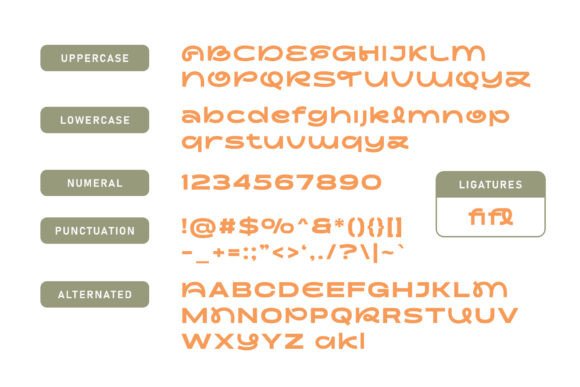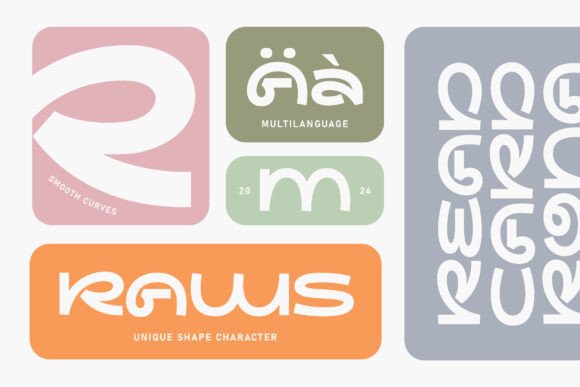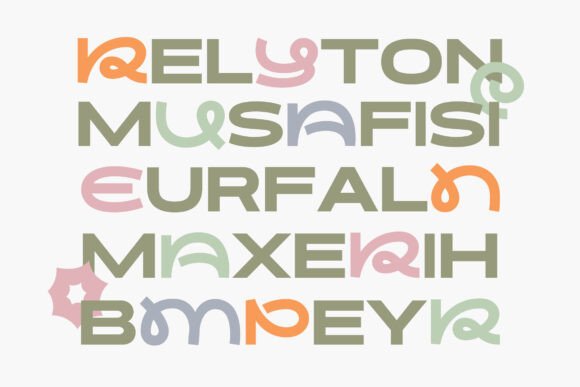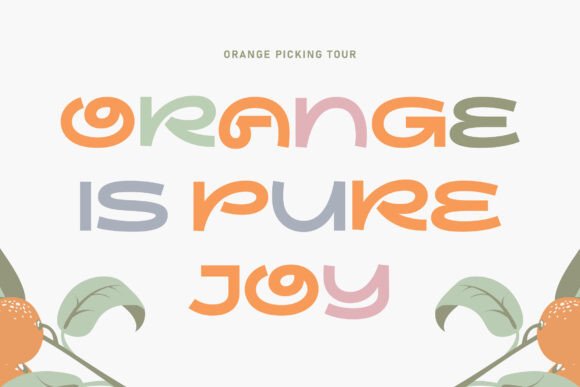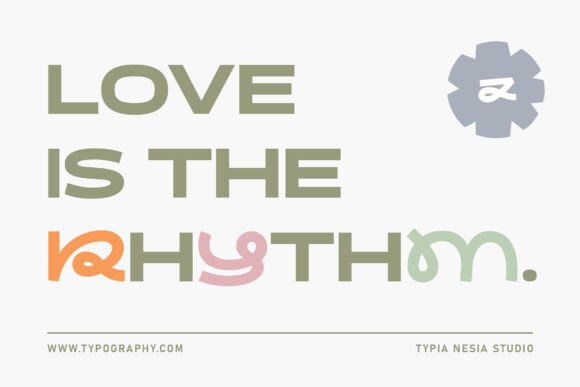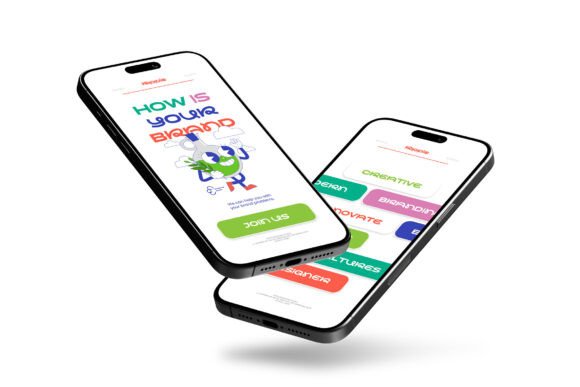
Frezbie Font: Elevate Your Designs with a Modern Loopy Sans Font
In the world of typography, a font can make all the difference in the success of a design project. For designers and crafters looking for a unique and modern typeface that adds a touch of playfulness and sophistication, Frezbie Font is an excellent choice. This modern loopy sans font seamlessly blends contemporary aesthetics with playful and unique loopy details, making it perfect for a wide range of creative applications.
A Fresh and Lively Approach to Modern Typography
Frezbie Font offers a fresh and lively approach to modern typography, making it an ideal choice for designers who want to add personality and creativity to their designs. Whether you’re working on branding projects, playful logos, product packaging, social media graphics, creative posters, whimsical headlines, advertising campaigns, or logo design, Frezbie Font is the perfect tool to elevate your work.
Key Features of Frezbie Font
- Uppercase and Lowercase Letters: Frezbie Font comes with a comprehensive set of uppercase and lowercase letters, ensuring that you have the flexibility to create a wide range of designs.
- Punctuation and Numerals: The font includes a complete set of punctuation marks and numerals, making it a versatile choice for various design projects.
- Stylish Ligatures and Alternates: Frezbie Font offers stylish ligatures and alternates, providing you with creative versatility and allowing you to add a unique touch to your designs.
- Multilingual Support: With multilingual support, Frezbie Font ensures global accessibility, making it a perfect choice for international projects.
Perfect for Creative Applications
Frezbie Font is designed for those who want a unique, modern, and playful typeface that brings both functionality and flair to their designs. Its loopy characteristics bring a sense of fun and sophistication to any project, making it suitable for a variety of creative applications, including:
- Branding Projects: Use Frezbie Font to create memorable and engaging brand identities that stand out from the crowd.
- Playful Logos: Add a touch of playfulness to your logos with Frezbie Font’s unique loopy details.
- Product Packaging: Make your product packaging stand out with Frezbie Font’s modern and fresh aesthetic.
- Social Media Graphics: Create engaging social media graphics that reflect your brand’s personality with Frezbie Font.
- Creative Posters: Add a touch of whimsy to your posters with Frezbie Font’s playful and unique design.
Why Choose Frezbie Font?
With so many fonts available, why choose Frezbie Font? Here are just a few reasons:
- Unique Design: Frezbie Font’s loopy details make it a one-of-a-kind typeface that will set your designs apart.
- Modern Aesthetic: The font’s modern aesthetic ensures that your designs look fresh and contemporary.
- Playful and Sophisticated: Frezbie Font brings a sense of fun and sophistication to any project, making it perfect for a wide range of creative applications.
- Multilingual Support: With multilingual support, Frezbie Font is a great choice for international projects.
In conclusion, Frezbie Font is a modern loopy sans font that offers a fresh and lively approach to modern typography. With its unique design, modern aesthetic, and playful details, it’s perfect for designers and crafters looking to add personality and creativity to their designs. Whether you’re working on branding projects, playful logos, product packaging, or social media graphics, Frezbie Font is a versatile and fun typeface that will elevate your work.